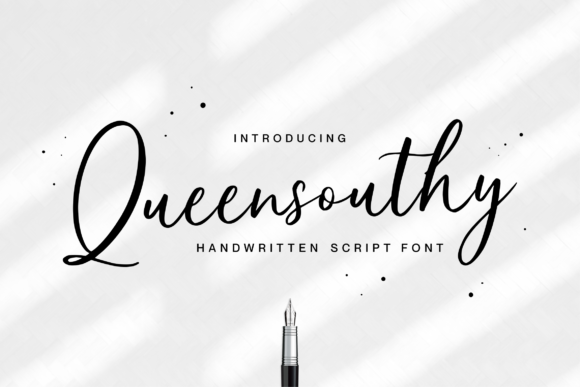
Journey into the realm of cinematic elegance with Queensouthy Font, the ultimate font for creating captivating movie posters that ignite the imagination.
Queensouthy, a mesmerizing script font crafted by the talented allouse.studio, captures the essence of Hollywood's golden age, evoking a sense of grandeur and sophistication. Its meticulously designed characters dance across the screen, leaving a trail of visual enchantment.
With Queensouthy, you have the power to transform ordinary words into cinematic masterpieces. Its sweeping strokes and graceful curves add an air of drama and intrigue, making your movie posters leap off the screen and transport viewers into the heart of the story.
Imagine your movie poster adorned with Queensouthy's captivating characters. The title, emblazoned in bold and sweeping strokes, commands attention and sets the tone for an epic adventure. Supporting text, rendered with delicate and elegant lines, provides essential information without detracting from the poster's overall impact.
Queensouthy's versatility extends beyond movie posters. Its cinematic charm lends itself effortlessly to a variety of design projects, including:
- Breathtaking logos and branding that exude sophistication and timeless appeal
- Eye-catching social media graphics that demand attention and captivate your audience
- Enchanting invitations and greeting cards that leave a lasting impression
- Enthralling book covers that transport readers to distant lands and forgotten eras
With Queensouthy, the possibilities are limitless. Unleash your creativity and let your designs take center stage, captivating audiences and leaving them spellbound.